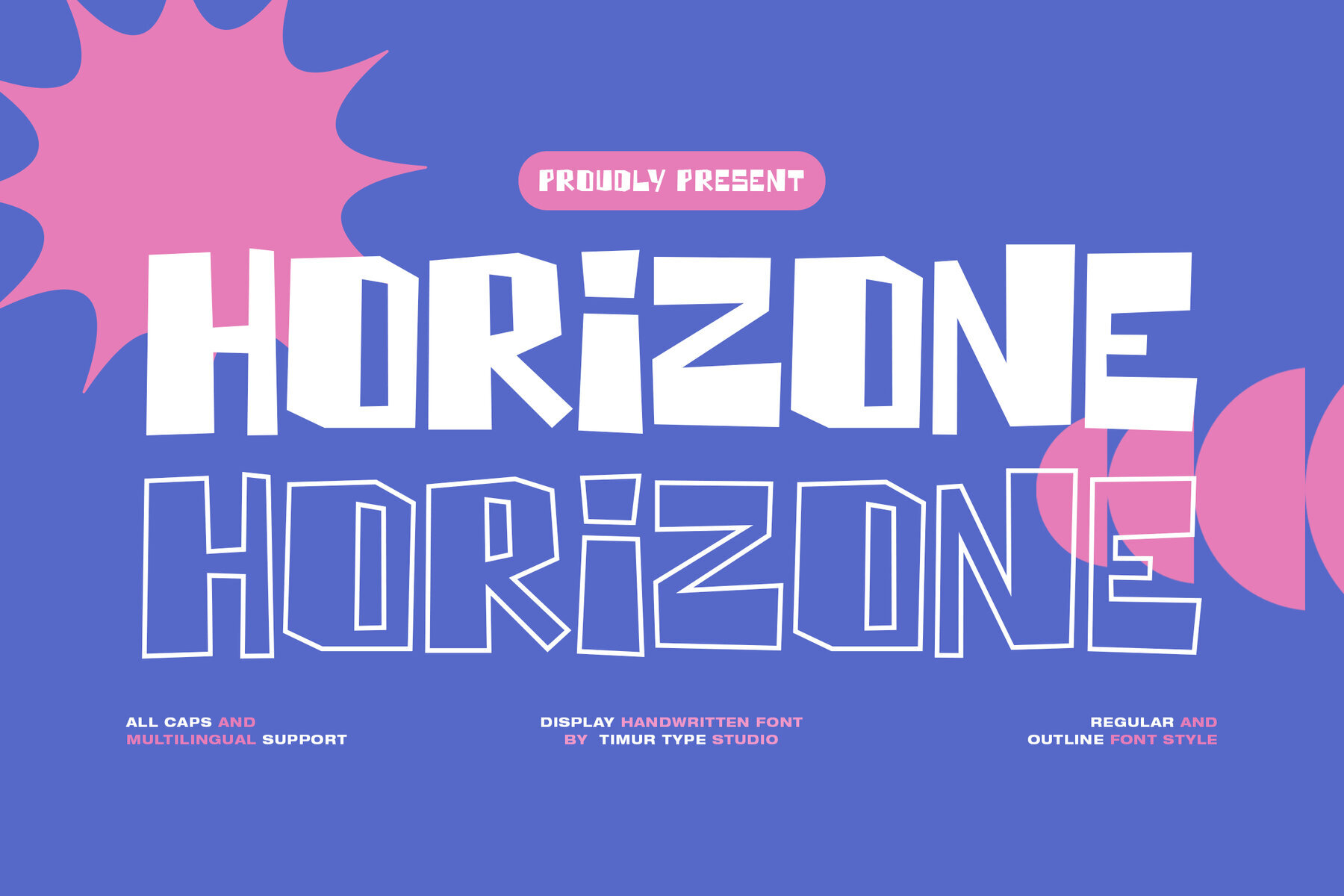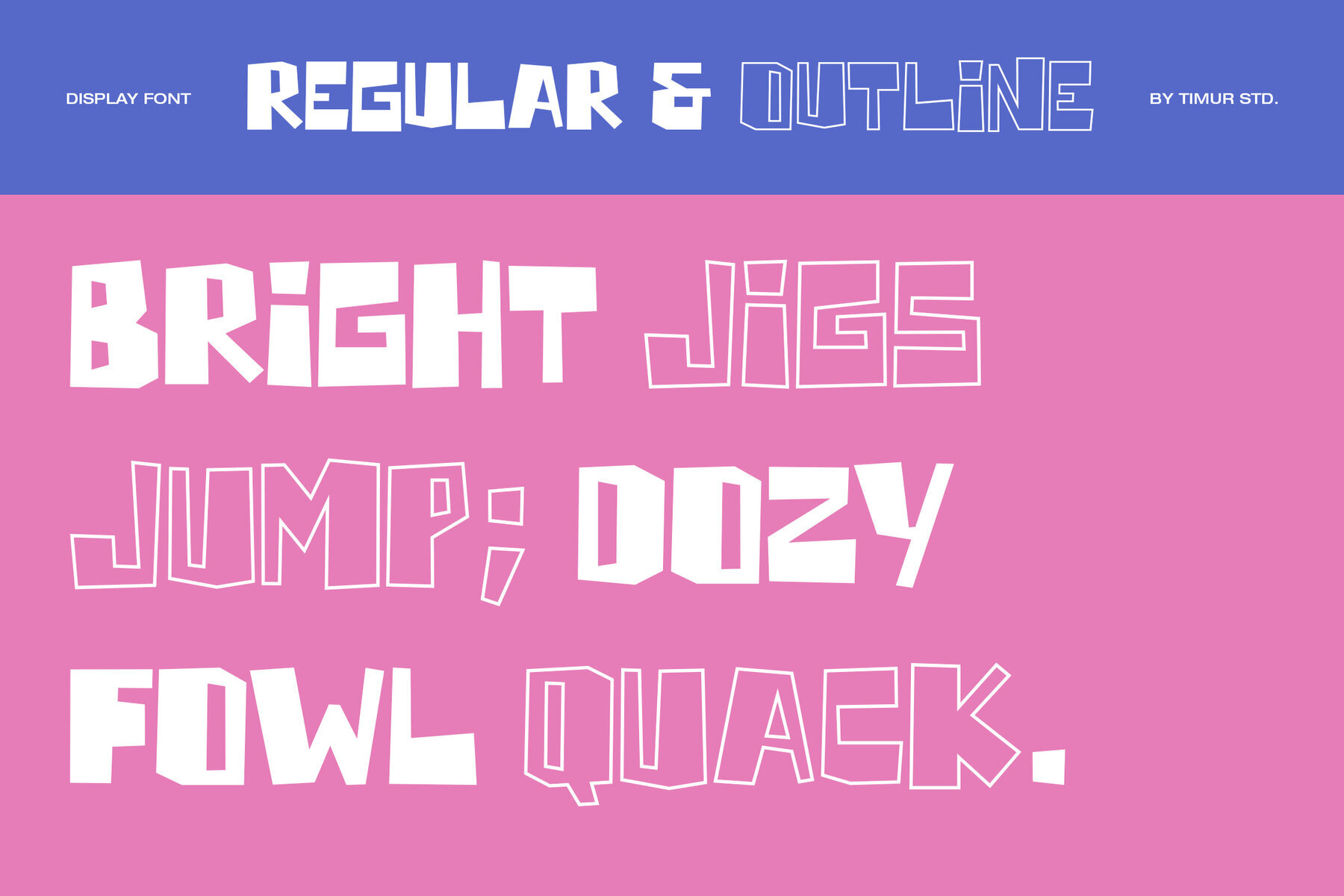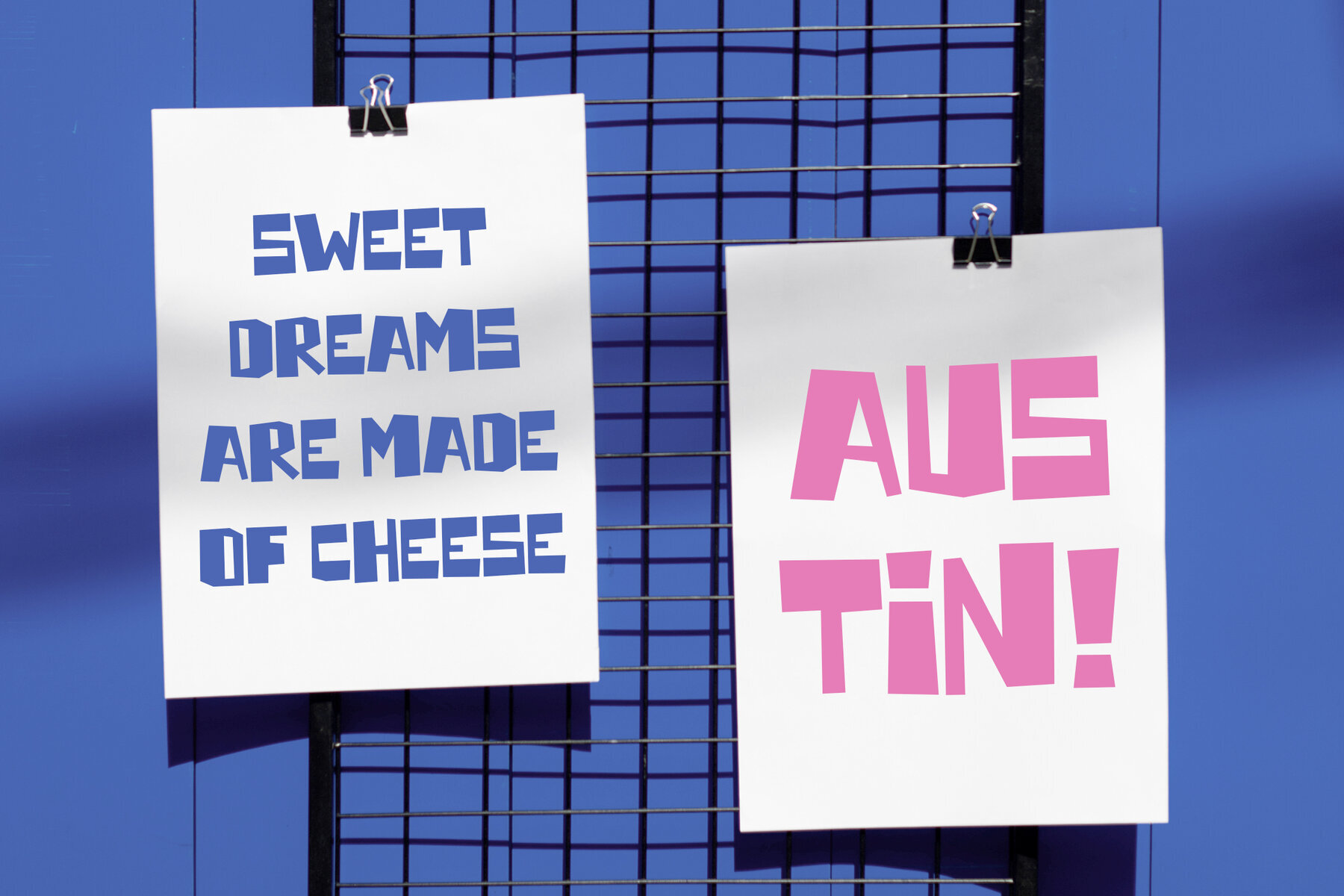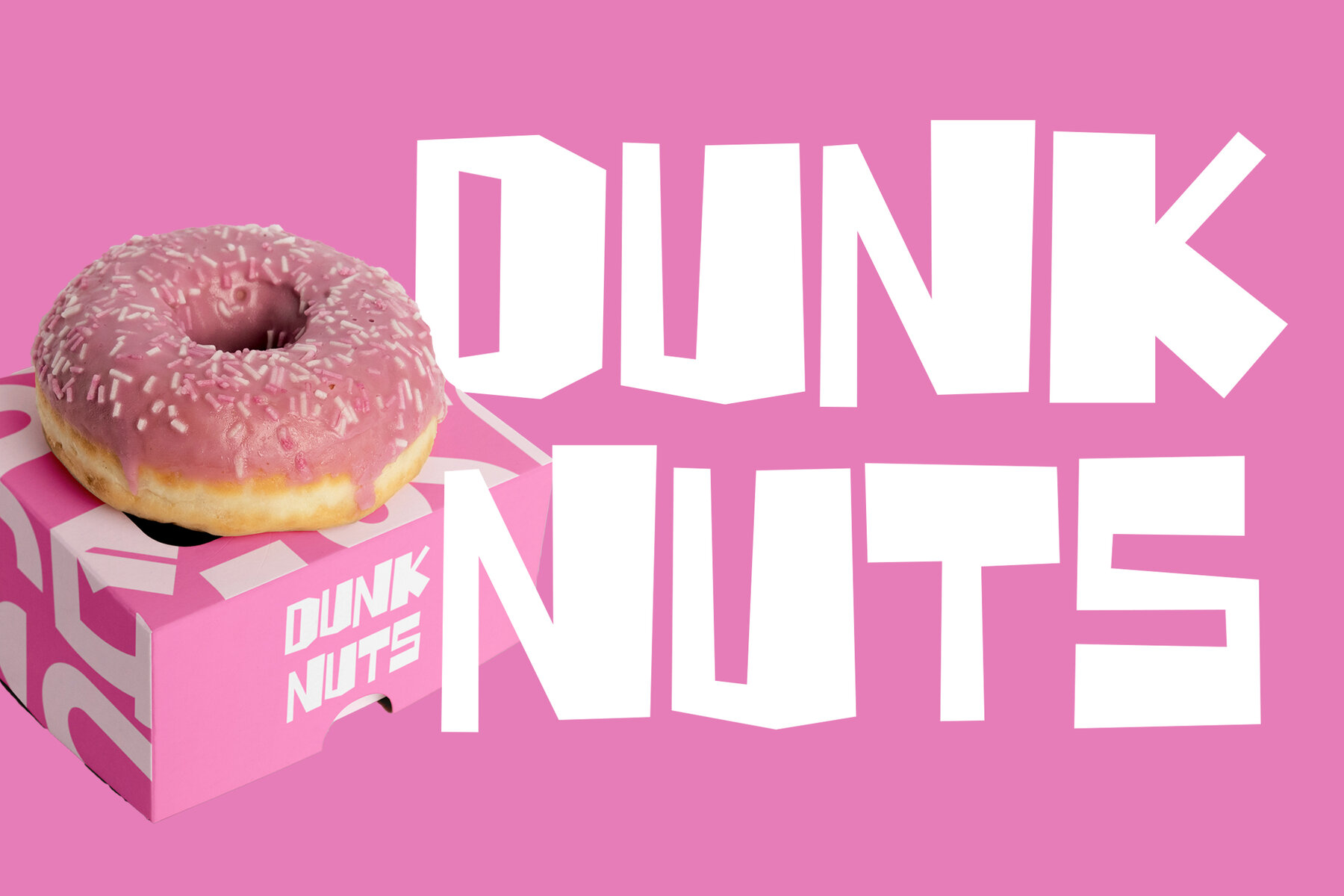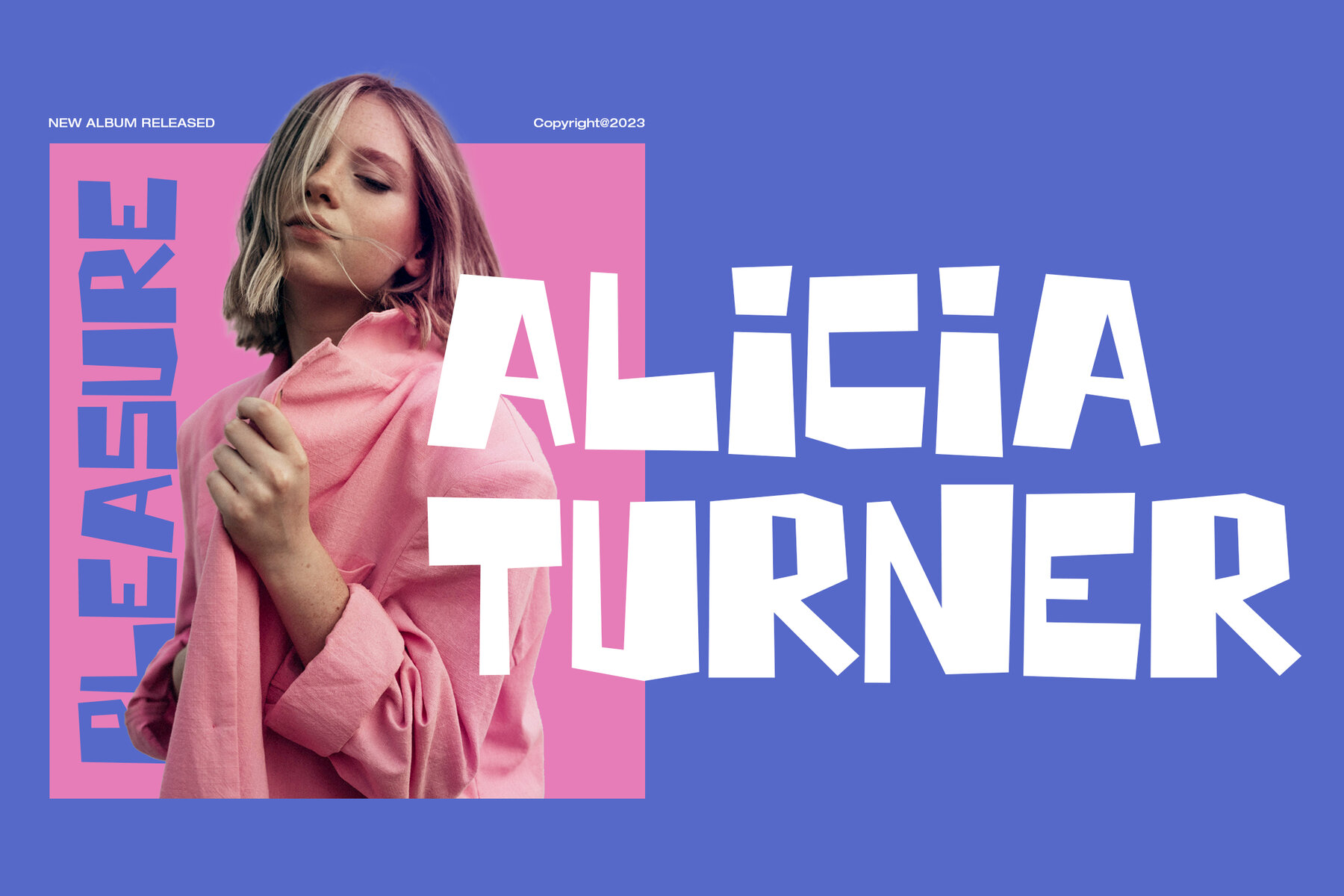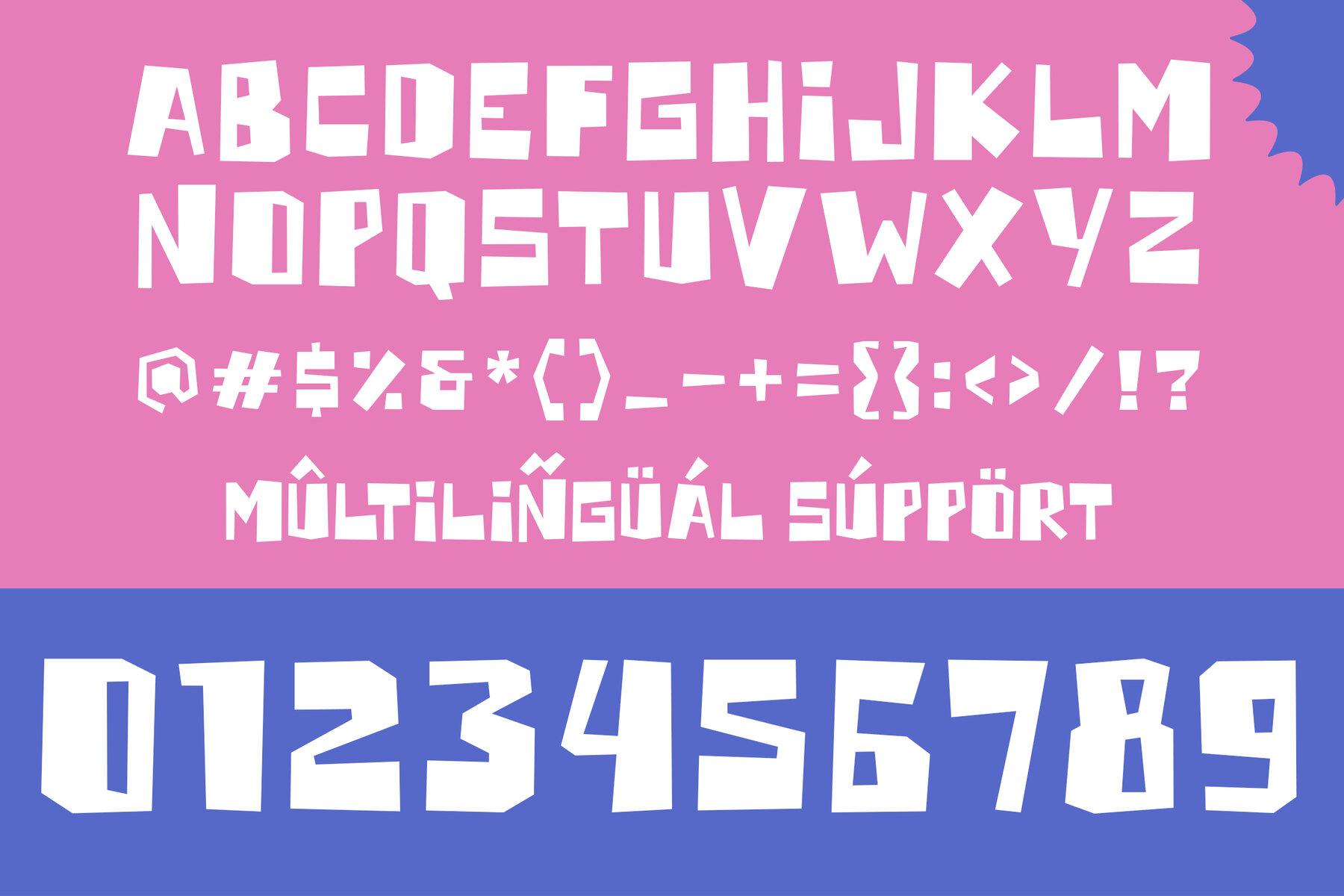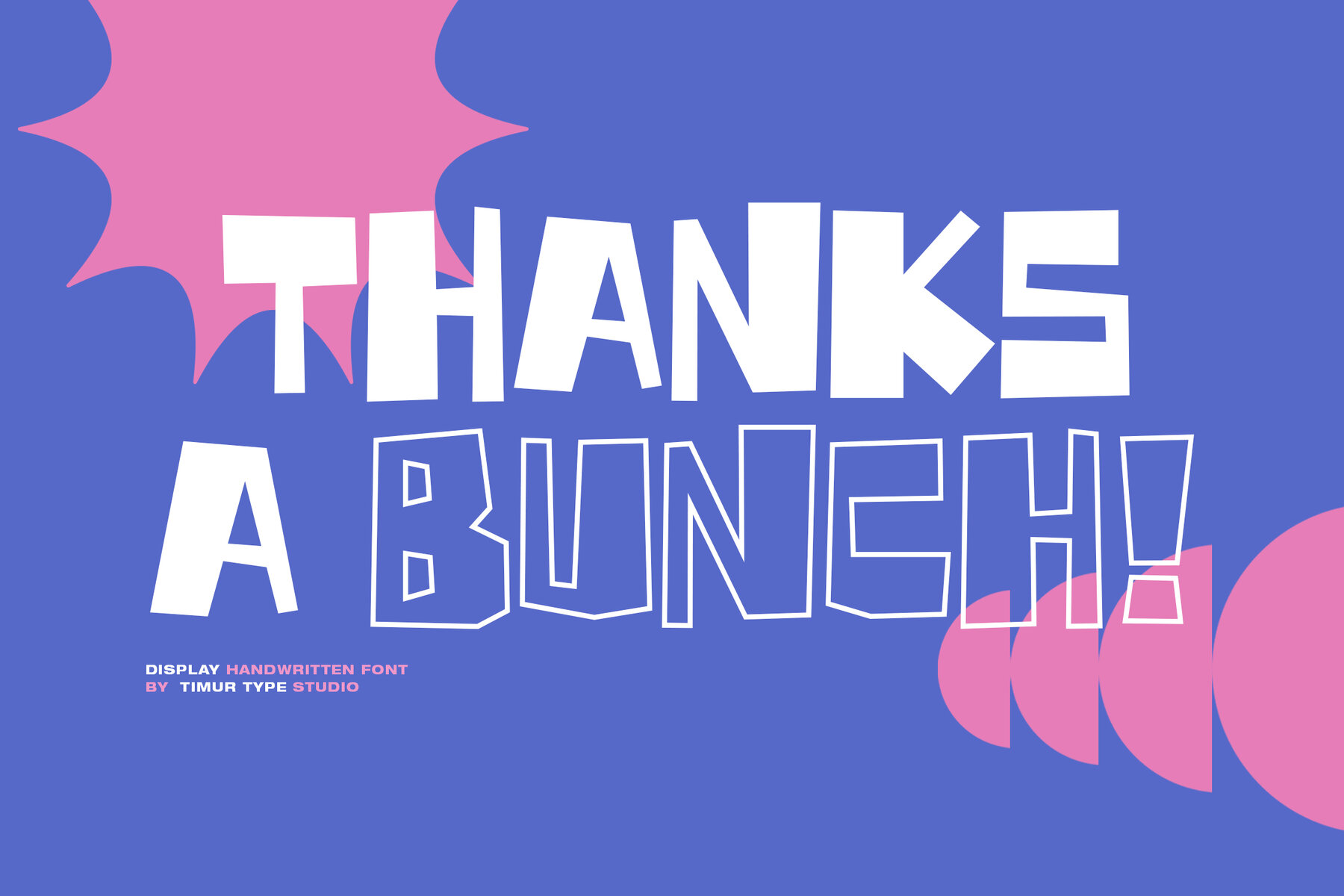
Horizone Font
Horizone is a display handwritten font that brings a touch of elegance and versatility to your designs. Its unique style and shape make it perfect for crafting captivating titles, logos, and more. With both regular and outline styles, Horizone offers creative flexibility, allowing you to achieve a variety of looks within your projects.
Ideal for digital designers and graphic artists, this font provides the handcrafted aesthetic without compromising on readability. Whether you're designing a bold headline, an eye-catching logo, or intricate artwork, Horizone enhances your work with a distinctive handwritten charm. Add a personalized touch to your creative ventures with this adaptable and stylish font.